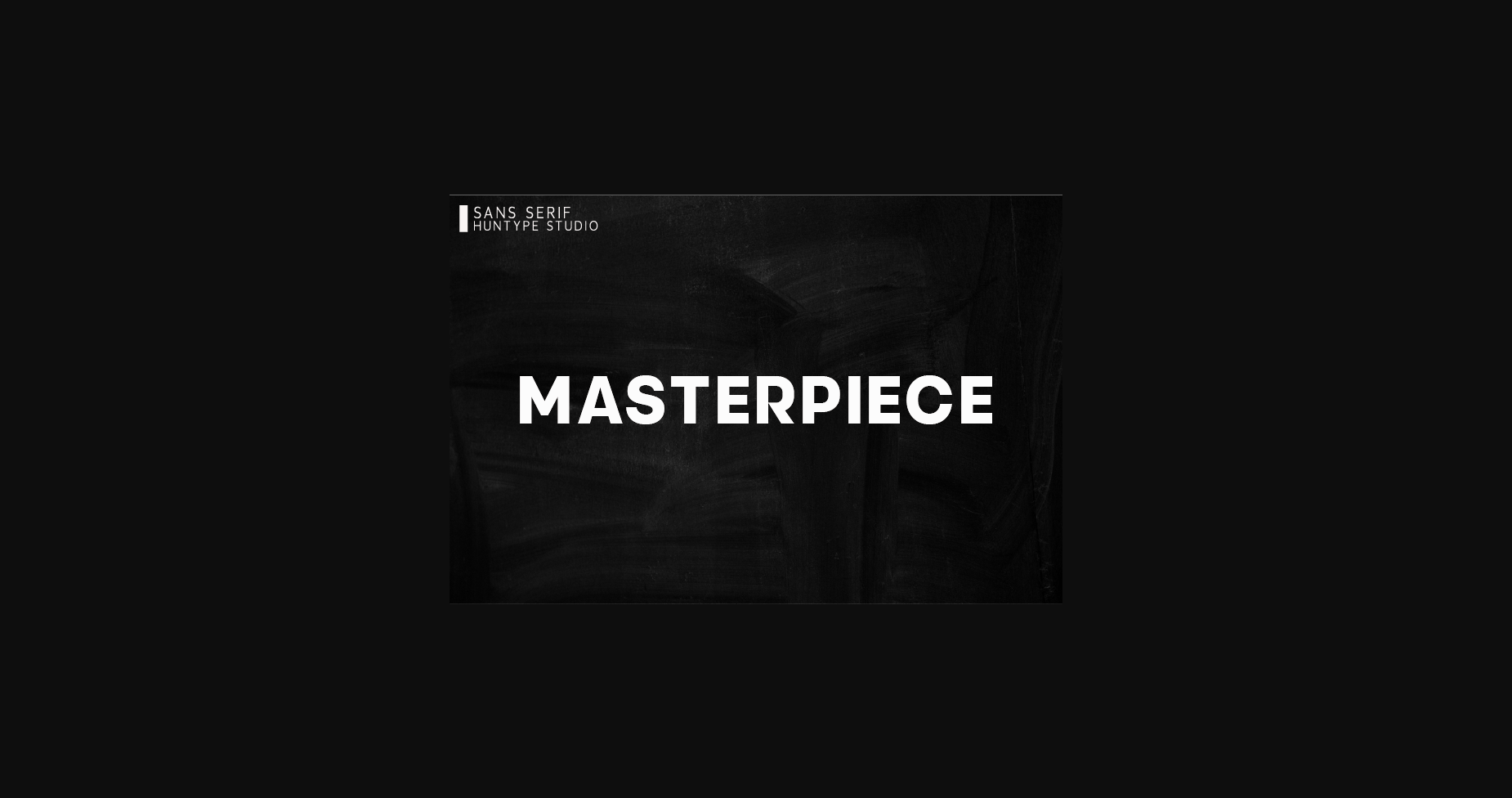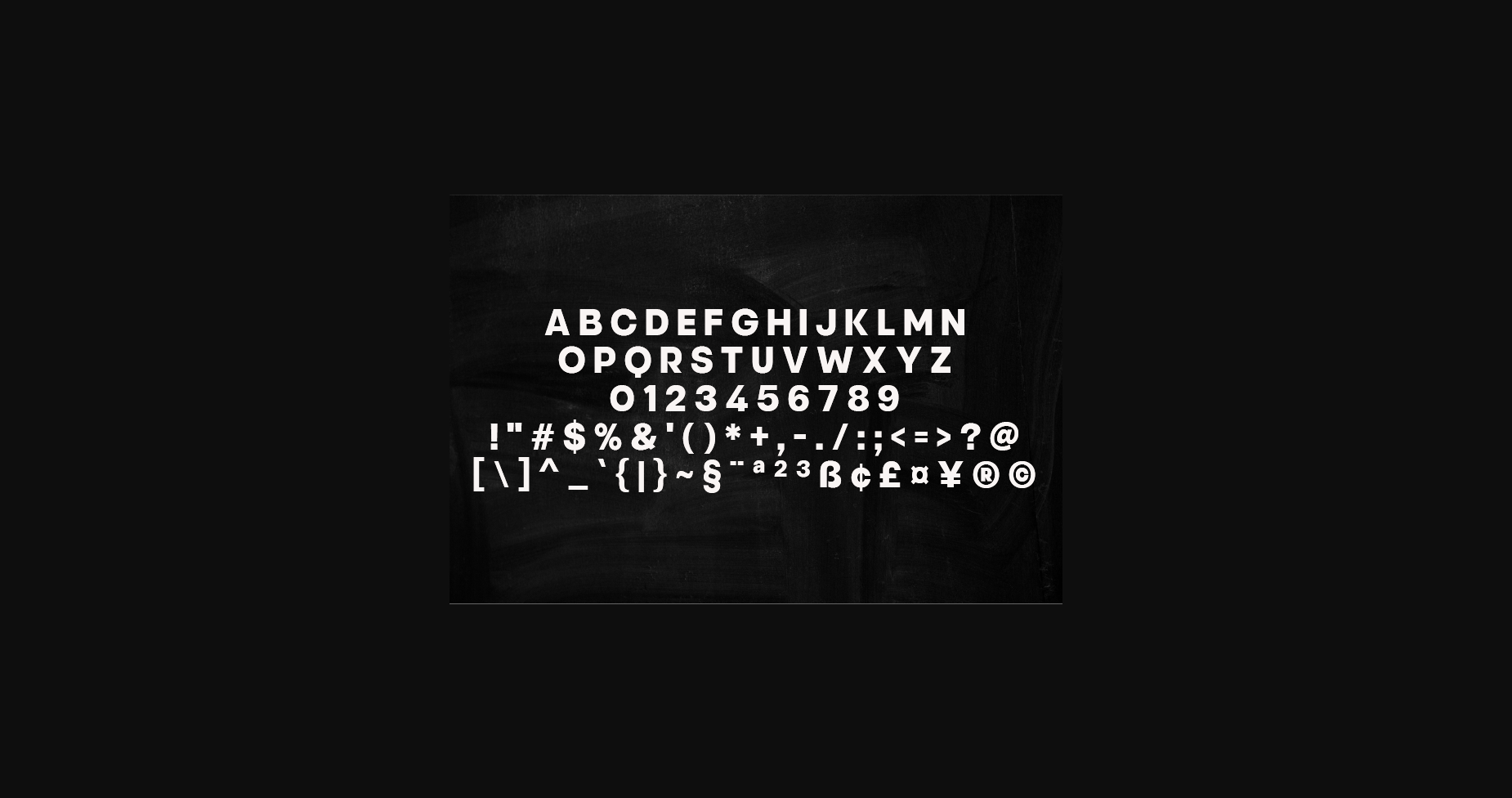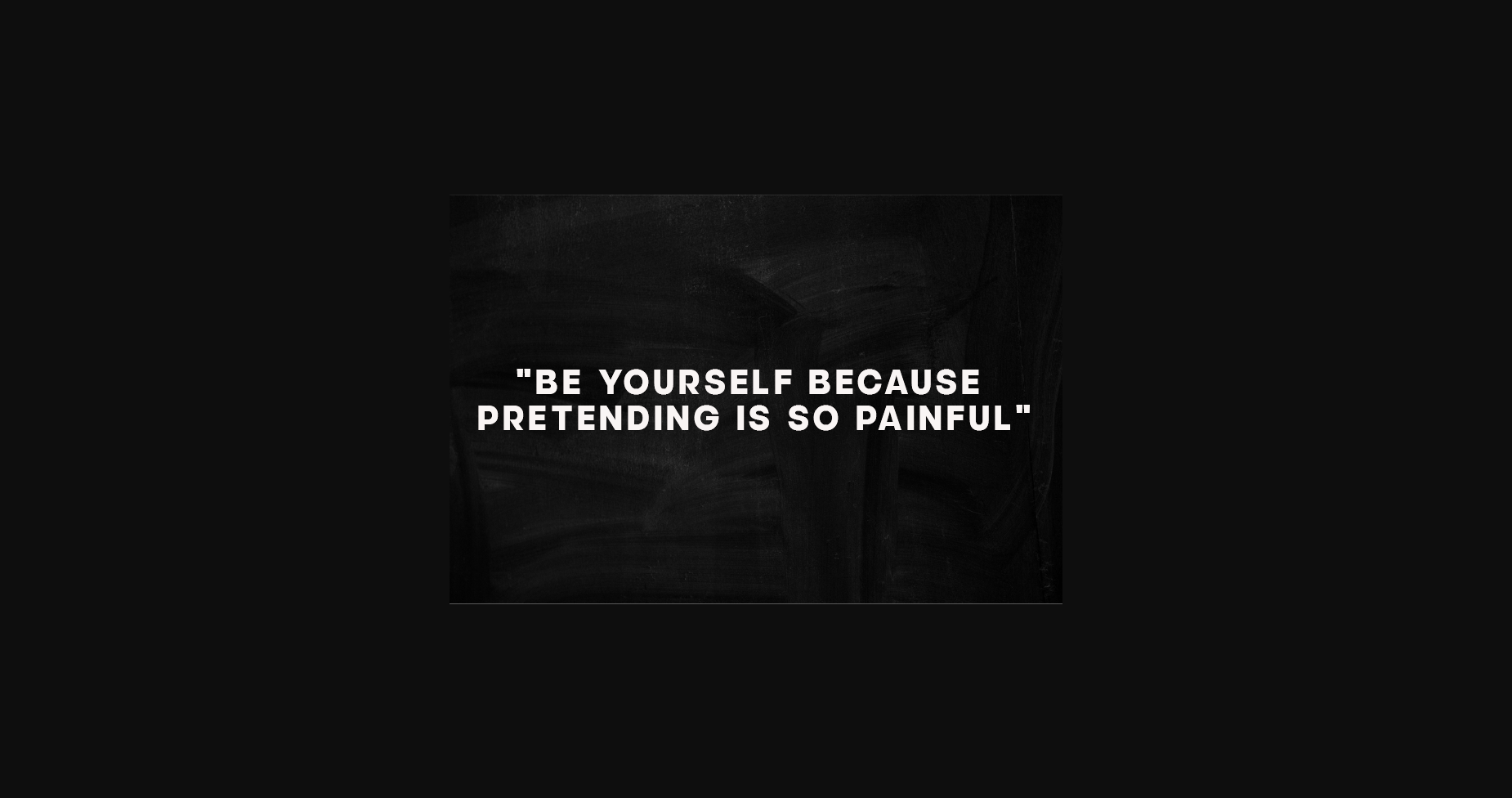
Masterpiece is a cool and neat sans serif font. Modern and classy, this font is suitable for a large variety of creative ideas. Add it confidently to your projects and you will love the results!